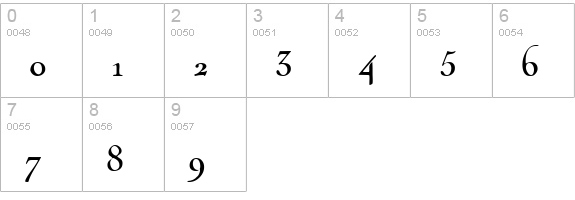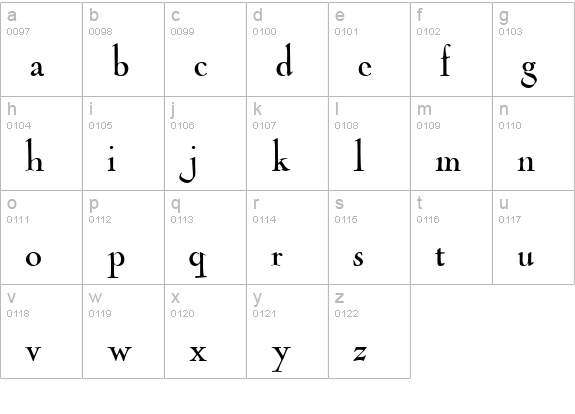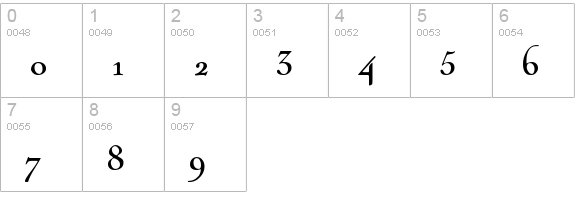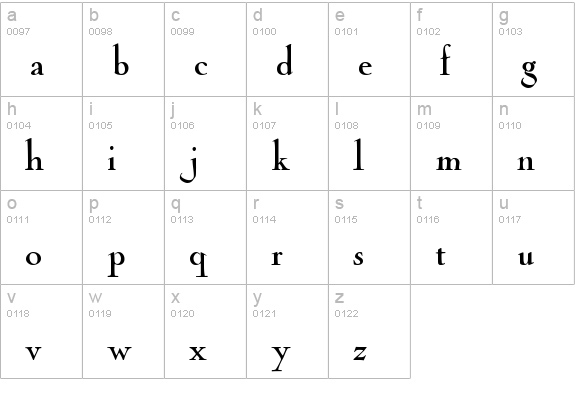
CochinArchaic Font Details
Introducing CochinArchaic font, a beautiful and elegant typeface that exudes a sense of sophistication and timelessness. With its unique blend of classic and modern elements, CochinArchaic is perfect for adding a touch of refined charm to any design project. This font features delicate serifs and graceful curves that give it a distinctive and stylish appearance. Whether used for headings, body text, or logos, CochinArchaic is sure to make a statement and leave a lasting impression. Best of all, CochinArchaic is available for free download at FontsMarket.com. So whether you're a designer looking to add a touch of class to your work or simply a typography enthusiast, be sure to check out CochinArchaic and elevate your designs to new heights.